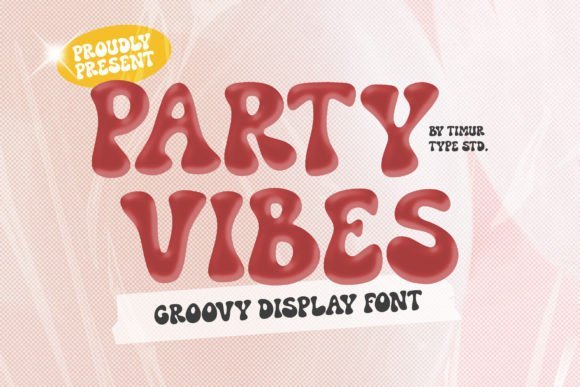
Party Vibes Font: Free Download Now
Introduction to Party Vibes Font
Party Vibes is a lively and energetic choice for your design projects.
👤 Author Timur type
With its bold and vibrant letterforms, this font captures the essence of a fun and festive atmosphere The playful curves and dynamic strokes give the Party Vibes font a retro and celebratory aesthetic, perfect for adding a groovy and party-like vibe to your event invitations, posters, and digital designs.
Why Choose Party Vibes Font?